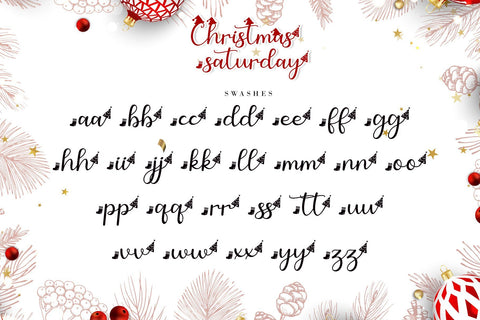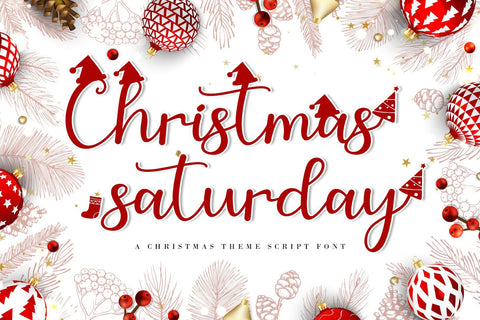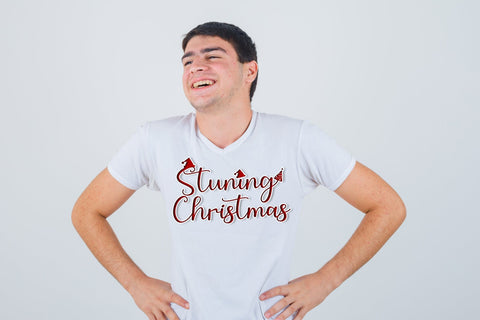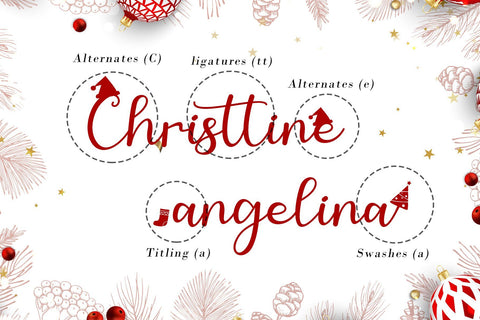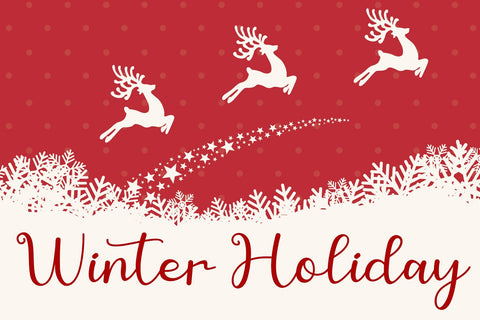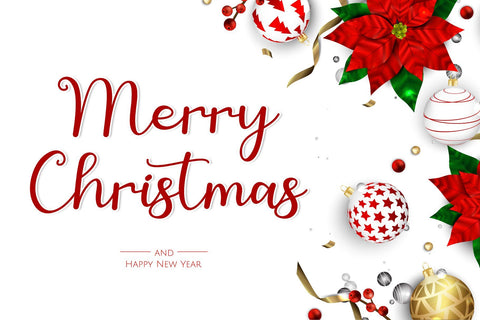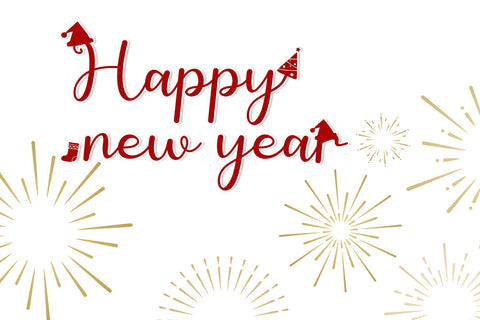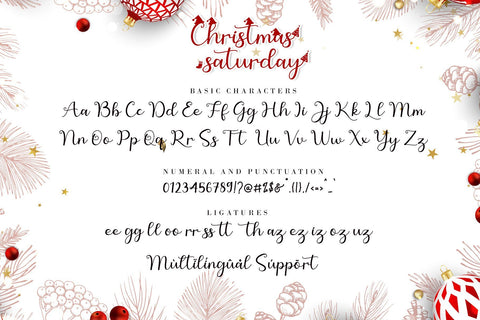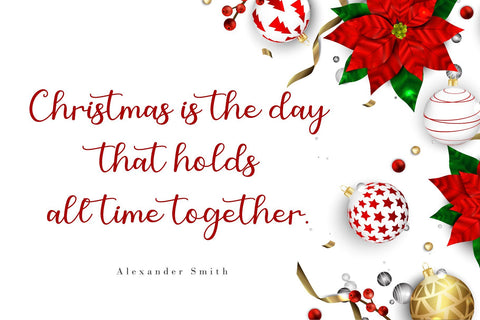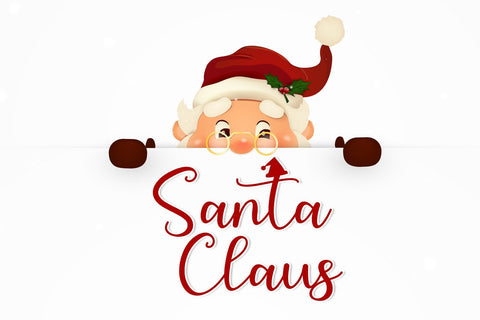
Christmas Saturday - A Christmas Special Script
Christmas Saturday is a beautiful, well-balanced, and stylish script font. It is defined by smooth curves and is perfect for a Christmas design project. Christmas Saturday is PUA encoded which means you can access all of the glyphs and swashes with ease!
Christmas Saturday Features :
- (a-z) titling, (a-z) swashes, ligatures
- Uppercase and lowercase alternates
- Support multilingual; ä ö ü Ä Ö Ü ß ¿ ¡